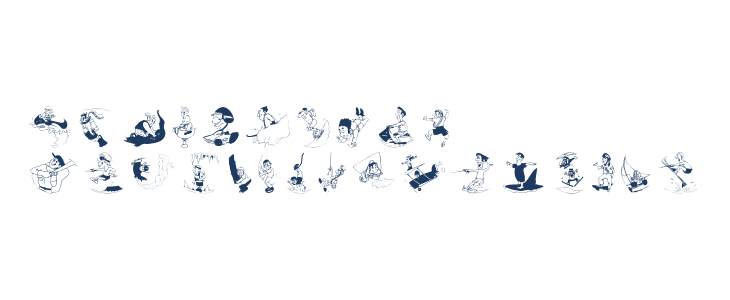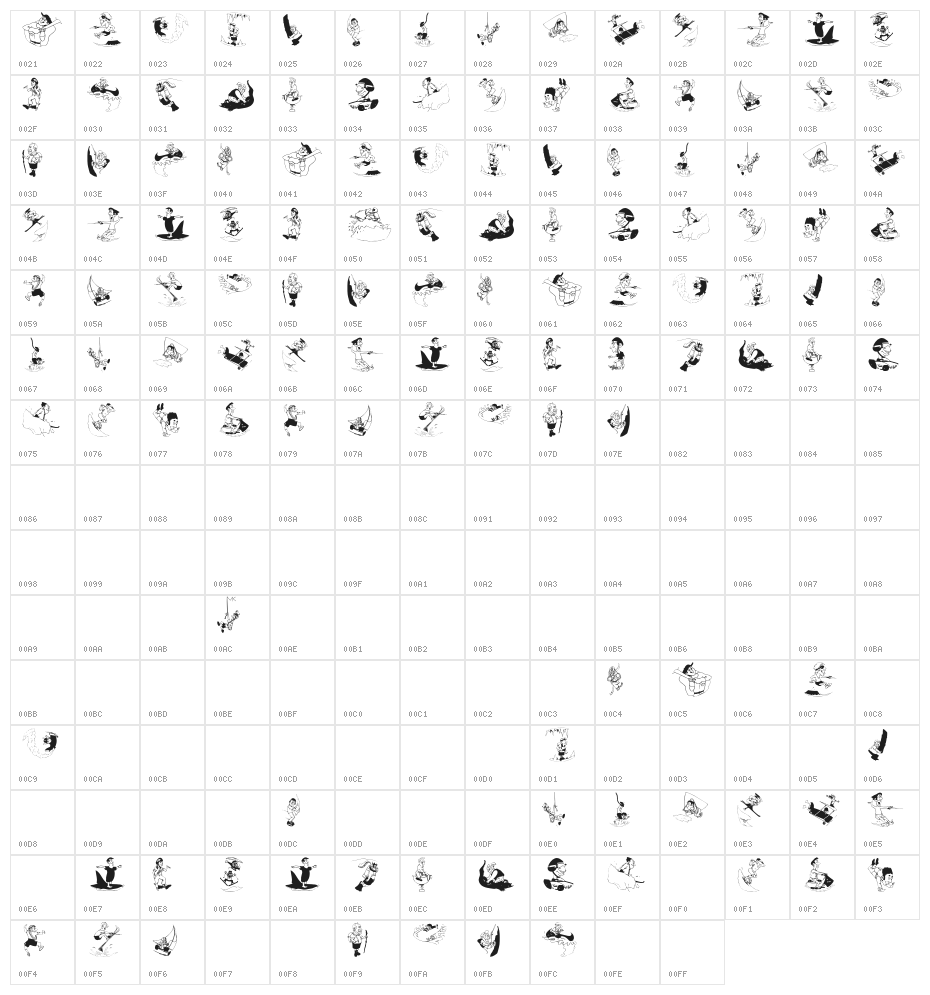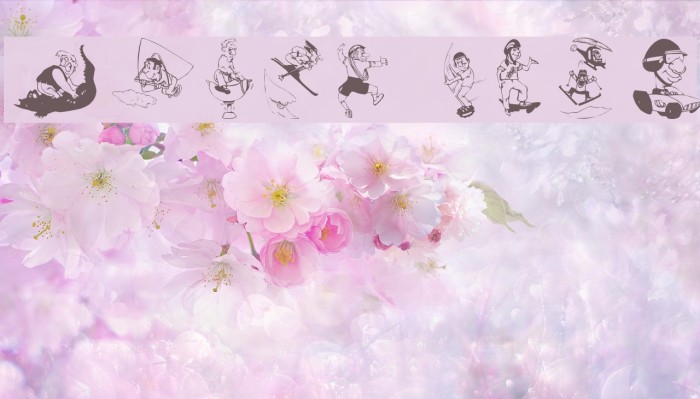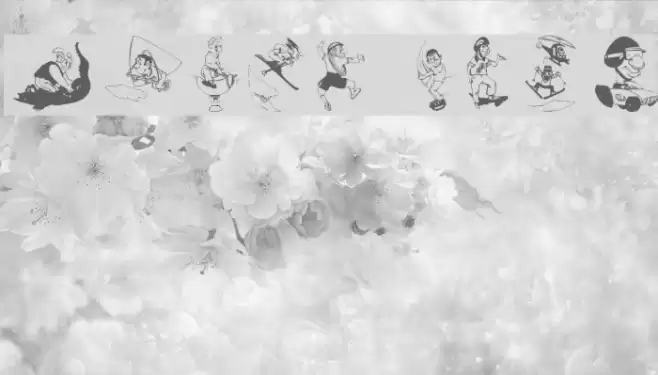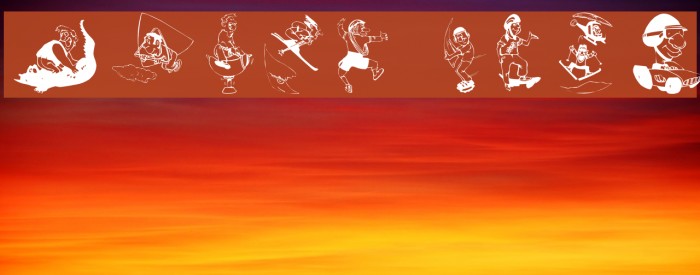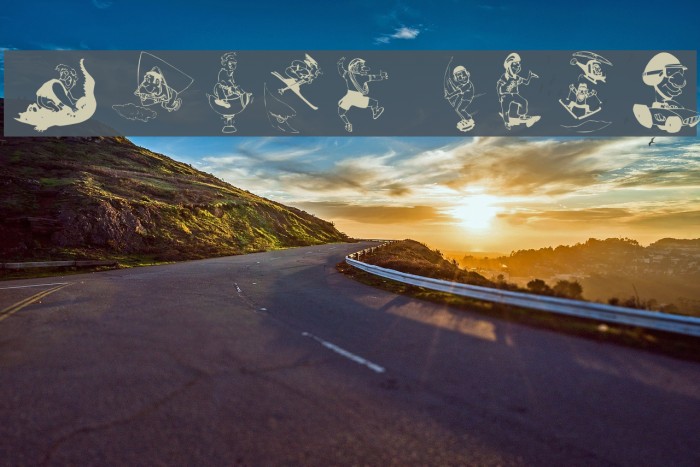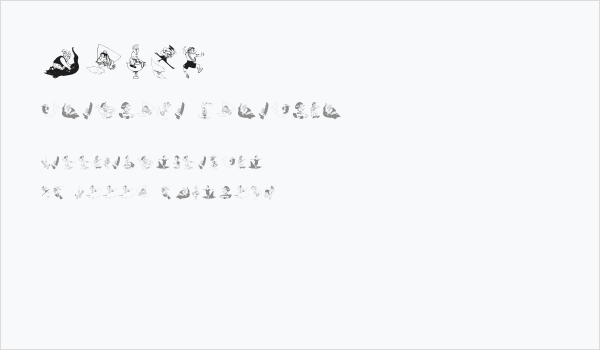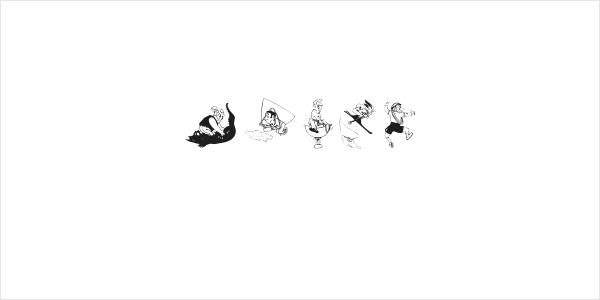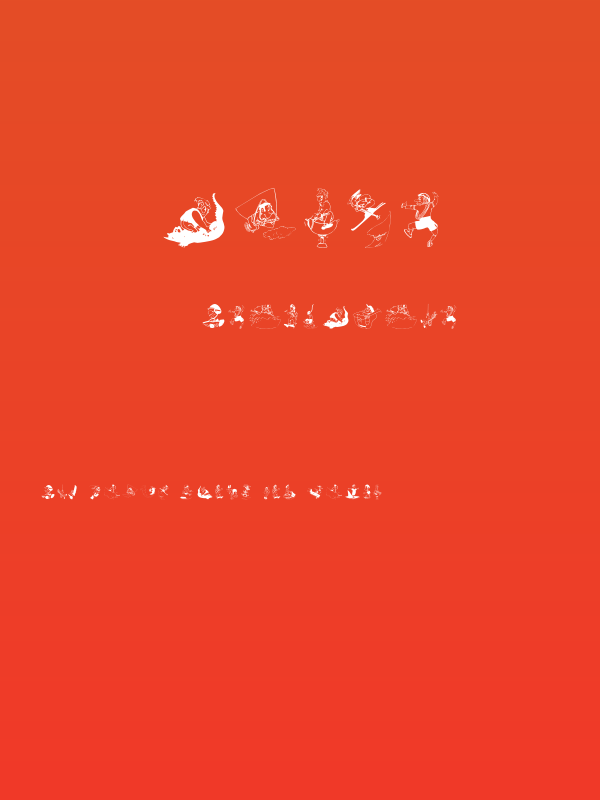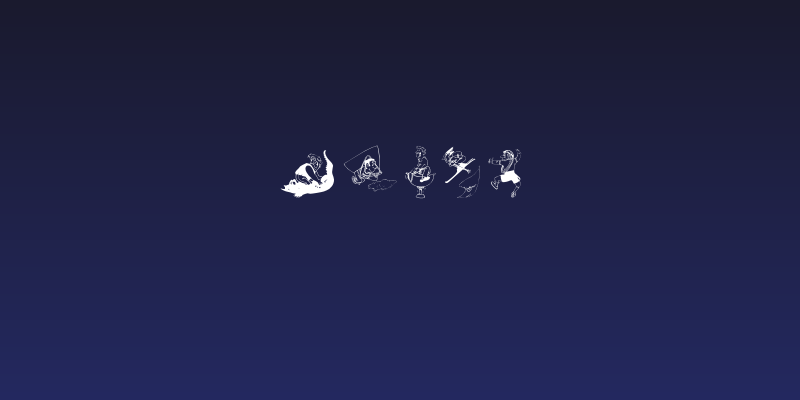
Risky Font
Risky Description
A whimsical, illustrated font where each character is represented by a playful cartoon figure engaged in various activities, creating a highly decorative and narrative visual style.
| Overall Style | Decorative, Playful, Whimsical |
| Use Case | Headlines, Logos, Posters, Themed event materials |
| Proposed Projects | ChildrenΓ’β¬β’s books, playful posters, party invitations, comic titles, educational materials. |